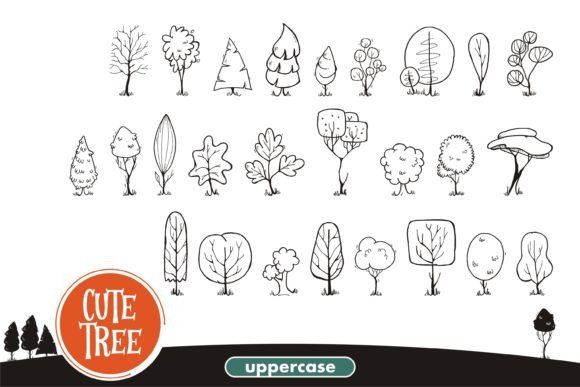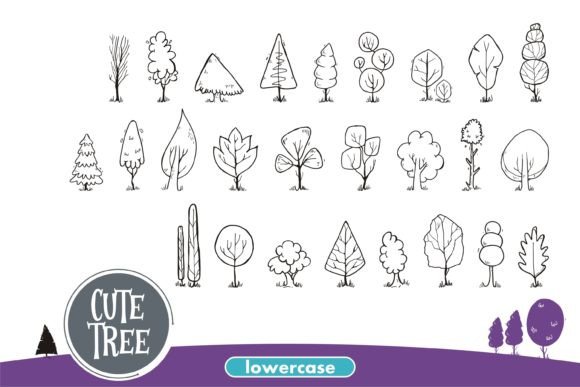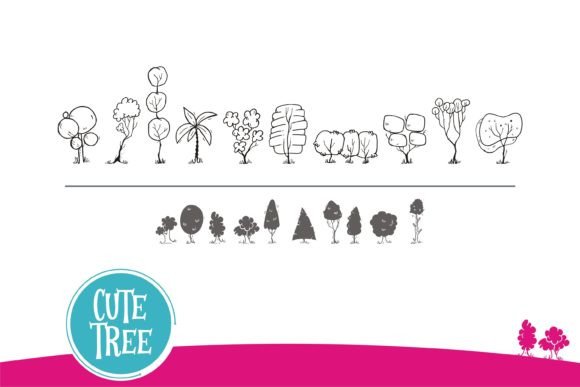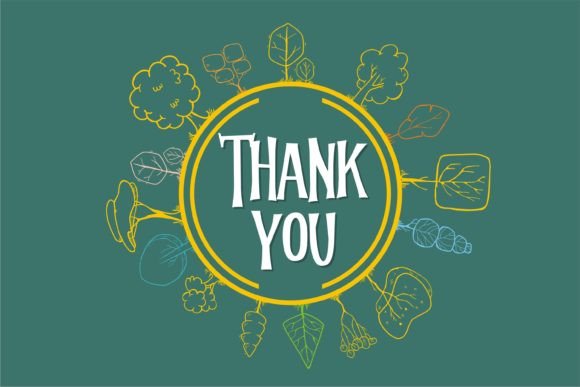
Introduction to Cute Tree Font
Cute Tree is a useful and fun dingbats font.
Whether youโre using it for crafting, digital designing, presentations, or greeting cards, itโs perfect This font has a lovely character, perfect for a wide variety of designs.
Key Features of Cute Tree Font
Why Choose Cute Tree Font?
Cute Tree Font offers exceptional quality and versatility, making it a valuable addition to your design toolkit. Whether you’re creating for personal projects or commercial use, Cute Tree Font delivers professional results.